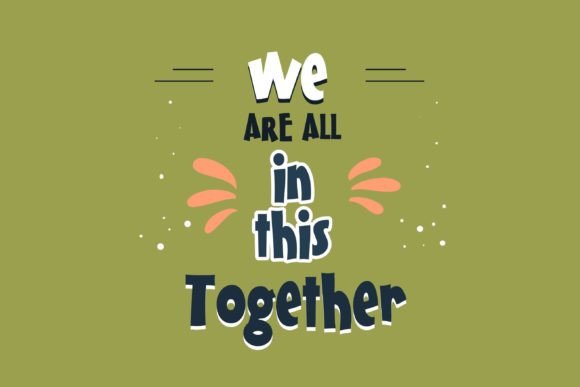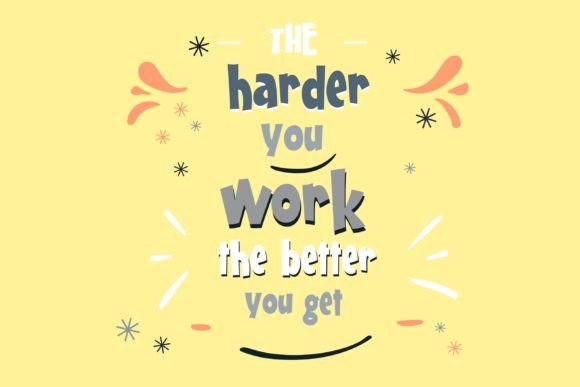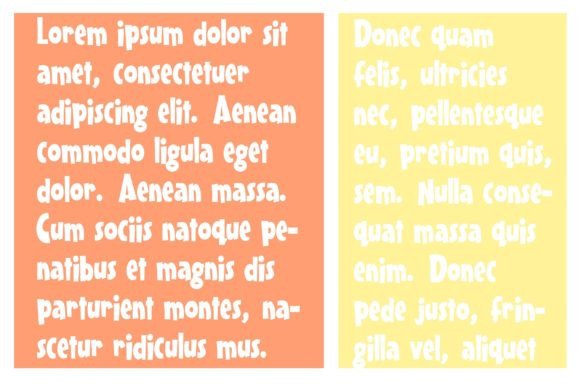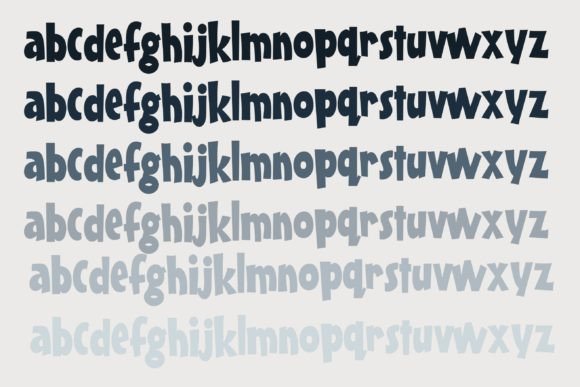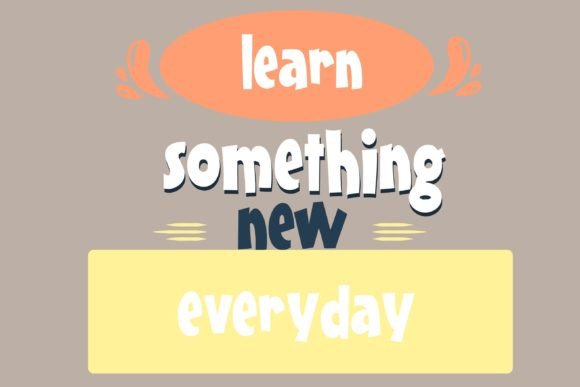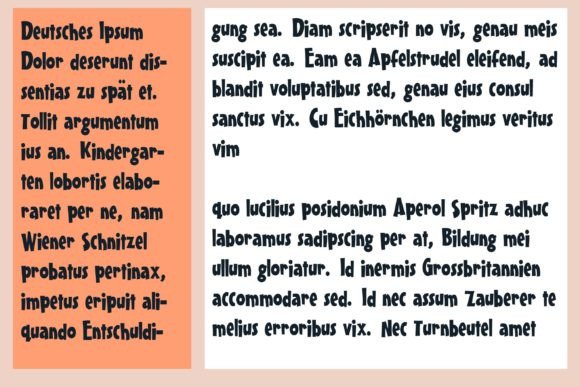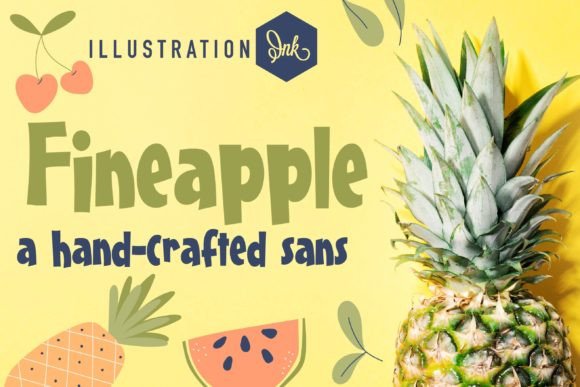
Introducing Fineapple Font: A Hand-Crafted Sans Serif for Creative Projects
Are you tired of using the same old fonts for your design projects? Look no further than Fineapple Font, a casual, hand-crafted sans serif that’s chunky and crafty feeling. This unique font is perfect for designers and crafters who want to add a personal touch to their work. In this article, we’ll explore the features and benefits of Fineapple Font, and how it can elevate your designs to the next level.
A hand-crafted font is a font that is designed to feel unique and crafty. It’s a font that’s been individually drawn with care, giving it a distinctive and organic look. Hand-crafted fonts are often used for invitations, greeting cards, and other items where a personal touch is desired. They’re typically informal and can be used for a variety of purposes, from logos and websites to everyday text.
The Features of Fineapple Font
Fineapple Font is a hand-crafted sans serif that’s been carefully designed to have a chunky and crafty feel. It’s a condensed version of the font that’s also included, making it perfect for projects where space is limited. The font has a unique, organic look that’s sure to stand out from the crowd. Each letter has been individually drawn with care, giving it a personal touch that’s hard to find in digital fonts.
Benefits of Using Fineapple Font
So why choose Fineapple Font for your design projects? Here are just a few benefits of using this hand-crafted font:
- Unique Look: Fineapple Font has a distinctive and organic look that’s sure to stand out from the crowd. It’s perfect for designers who want to add a personal touch to their work.
- Versatility: Fineapple Font can be used for a variety of purposes, from logos and websites to everyday text. It’s a versatile font that’s perfect for designers who want a font that can keep up with their creative projects.
- Crafty Feel: Fineapple Font has a chunky and crafty feel that’s perfect for crafters and designers who want to add a personal touch to their work.
How to Use Fineapple Font in Your Design Projects
Fineapple Font is easy to use in a variety of design projects. Here are a few ideas to get you started:
- Logos: Use Fineapple Font to create a unique and memorable logo for your business or brand.
- Websites: Add a personal touch to your website with Fineapple Font. It’s perfect for headings, titles, and other design elements.
- Invitations and Greeting Cards: Fineapple Font is perfect for invitations and greeting cards. Its hand-crafted look adds a personal touch that’s sure to impress.
- Social Media Graphics: Use Fineapple Font to create eye-catching social media graphics that stand out from the crowd.
Tips for Getting the Most Out of Fineapple Font
Here are a few tips for getting the most out of Fineapple Font:
- Experiment with Different Sizes: Fineapple Font looks great in a variety of sizes. Experiment with different sizes to find the one that works best for your design project.
- Pair with Other Fonts: Fineapple Font pairs well with other fonts. Try pairing it with a serif font for a unique and interesting look.
- Use for Headings and Titles: Fineapple Font is perfect for headings and titles. Use it to add a personal touch to your design project.
Fineapple Font is a unique and hand-crafted sans serif that’s perfect for designers and crafters who want to add a personal touch to their work. Its chunky and crafty feel makes it perfect for a variety of design projects, from logos and websites to invitations and greeting cards. With its versatility and unique look, Fineapple Font is sure to become a favorite font in your design arsenal.